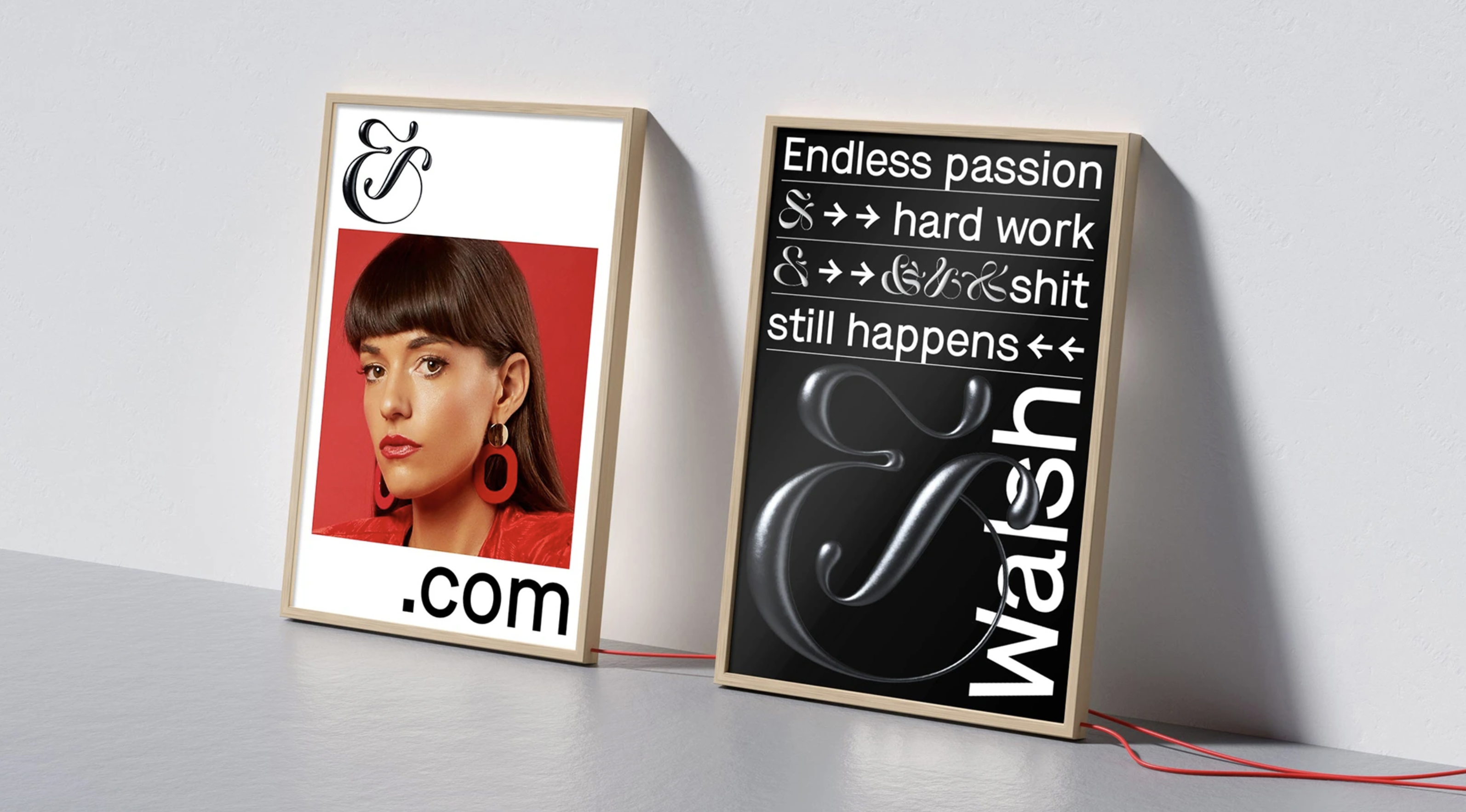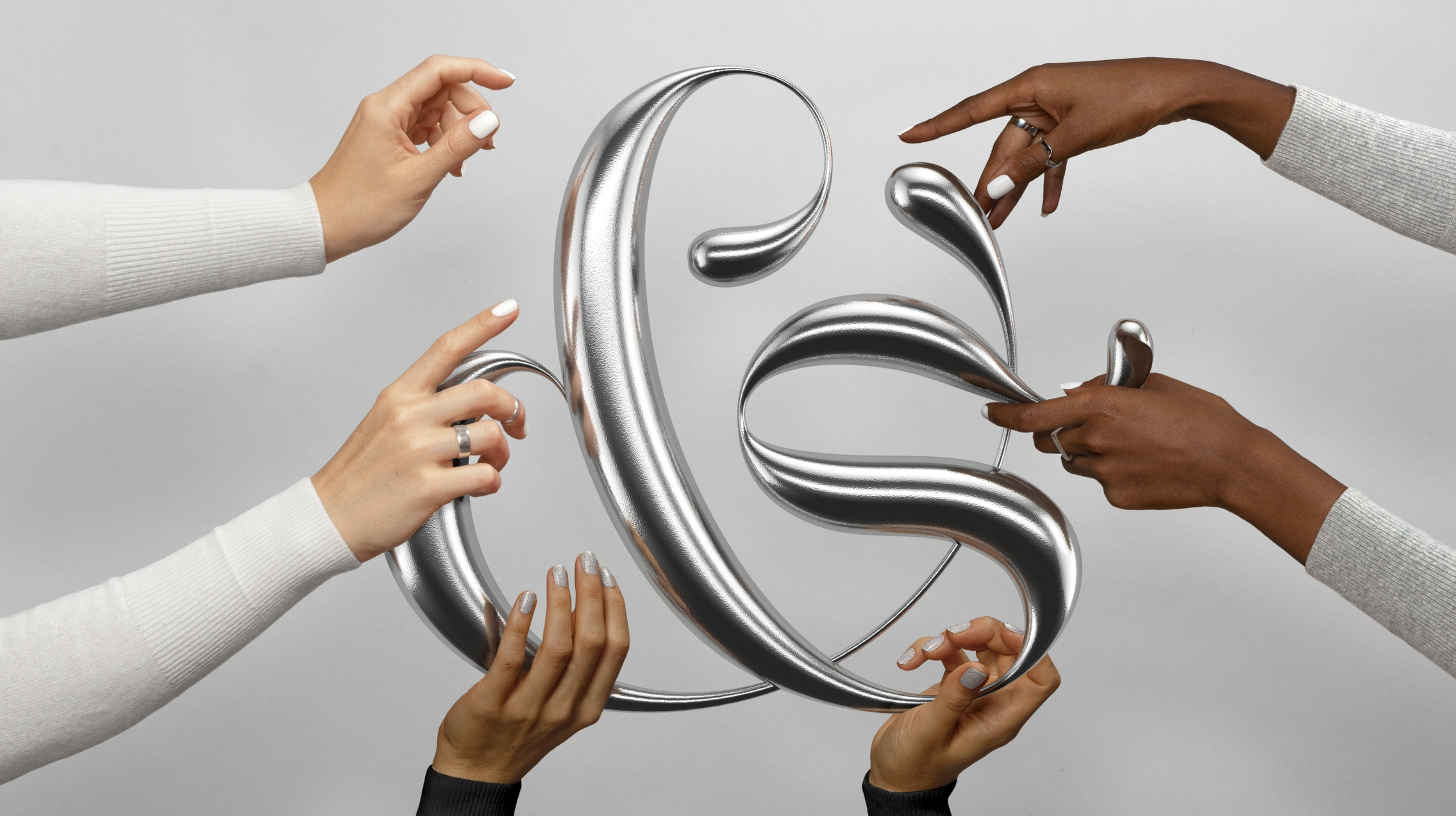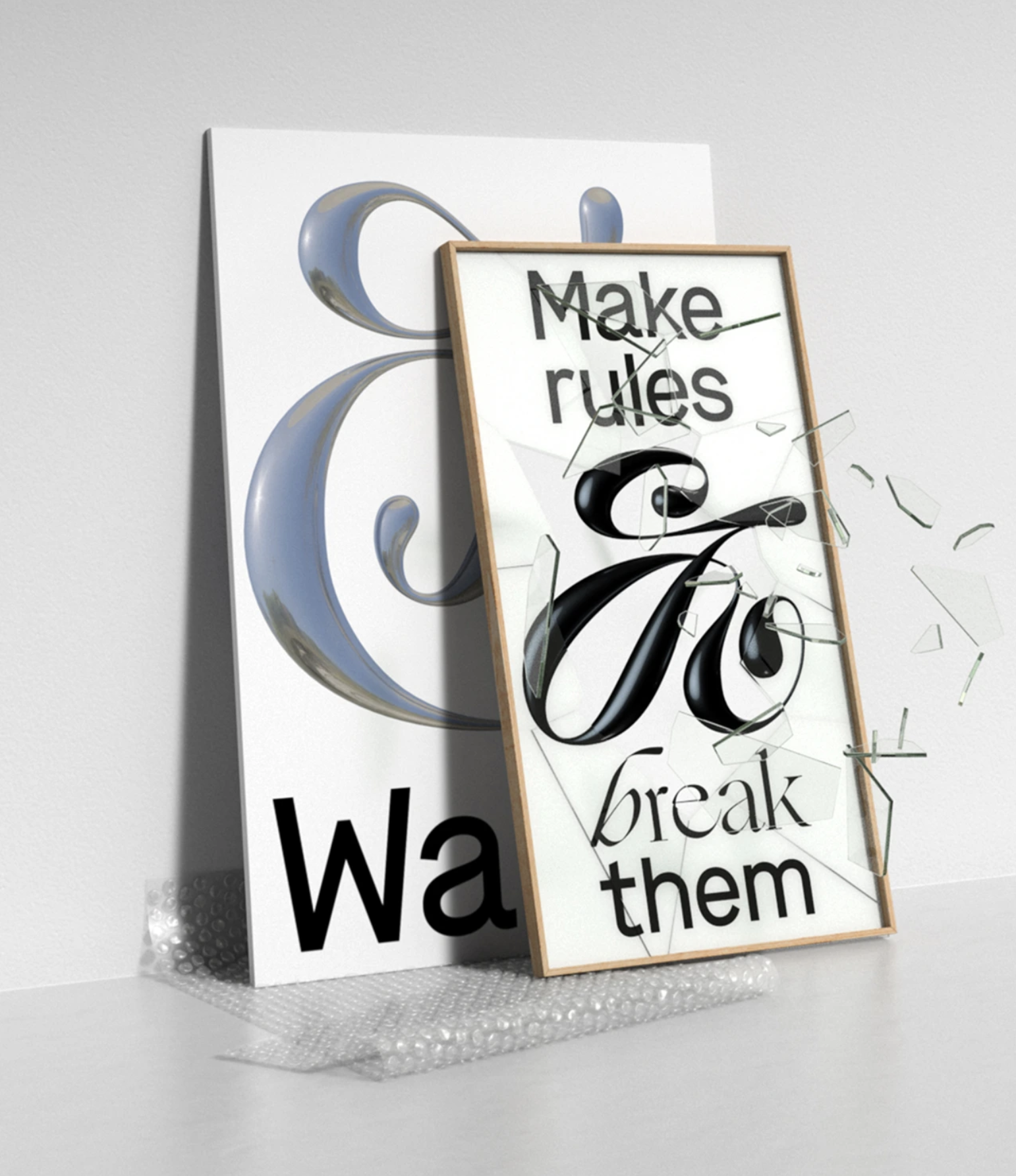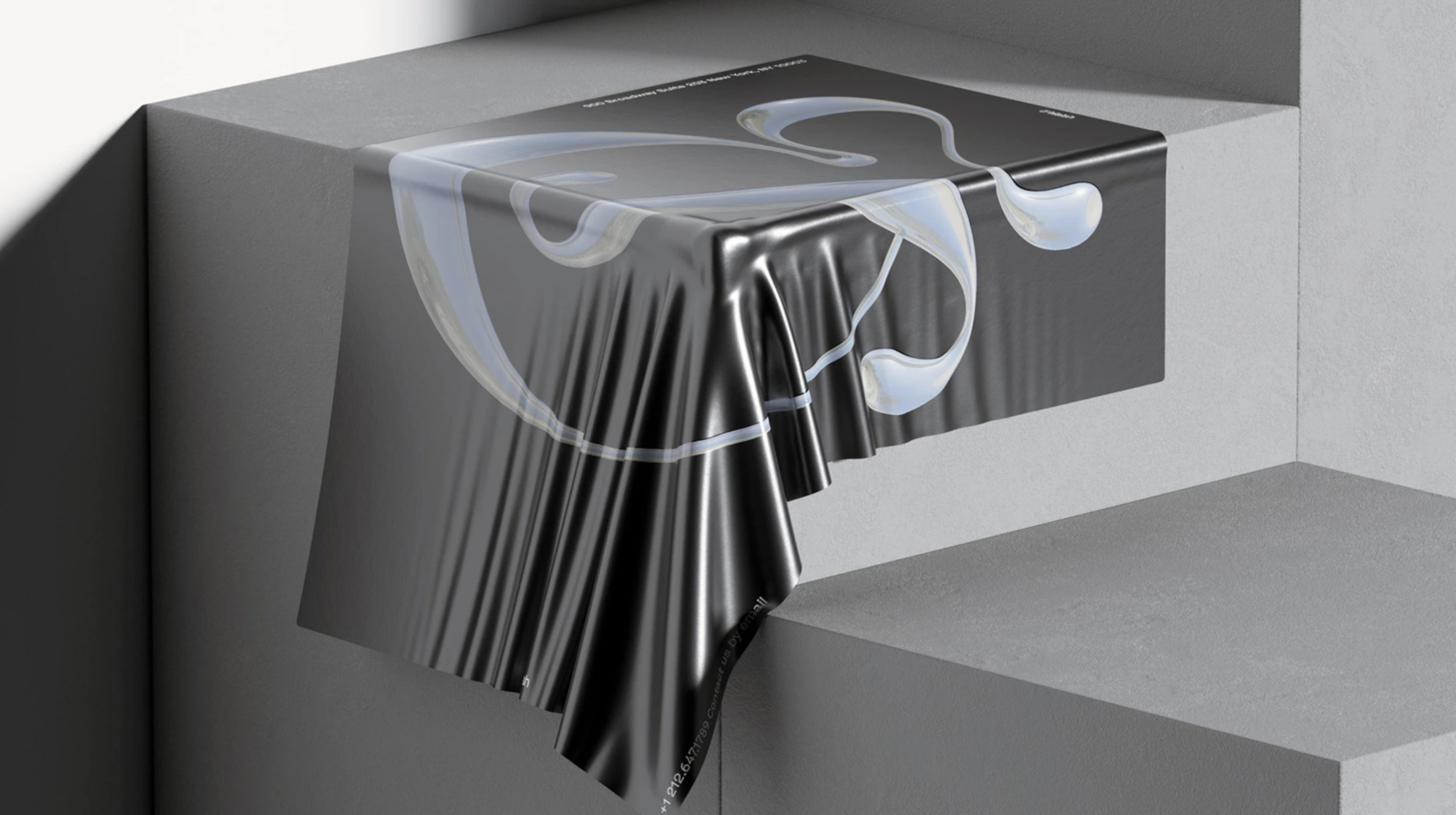
&Walsh: Jessica Walsh launches her own agency to disrupt the system
Have you ever felt a deep voice inside telling you that it was time for a change, but you didn’t know why? Mine started last year. It grew from a passing thought into an internal monologue, until one day it was all I could think about” writes renowned designer Jessica Walsh, co-founder and creative director of New York design firm Sagmeister & Walsh, who is flying solo with her own agency in the creative industry.
Her brand new venture &Walsh is wholly owned by the 32-year-old founder, CEO and creative director who is regarded a longtime fixture in the design world with a stunning portfolio of works including branding & advertising projects for Snapchat, Apple, Beats by Dre, Kenzo, C3/Live Nation Festivals, among many others. Starting this week &Walsh takes the place of Sagmeister & Walsh, which will no longer accept commercial work together but will continue to collaborate when needed.
“Why change? Since I was very young, It has always been my dream to have my own studio that was entirely my own. It was my intention 10 years ago to start my own company before I met Stefan. Life takes you on unexpected paths, and mine took me towards his studio on 23rd street on a cold day in February. That meeting turned into working on several projects together, and we became business partners a few years later” writes Walsh who is beyond excited to launch her brand new venture which puts her in a position of power in the creative sector -across which sexism is rife.
“I’m overwhelmed with gratitude for this privileged position I’ve found myself in. Very few women make it to creative leadership positions and even fewer have founded their own creative agencies” she notes as she joins a league few females were allowed to. FYI, with &Walsh its founder joins the .1% of Women Founded Creative Agencies.
“The lack of representation in leadership & the pay gap for women and non-binary people has been a focus of mine through our non-profit initiative Ladies, Wine & Design. This initiative was born out of personal experiences I had with sexism in our industry, not only from men but from other women. I found that sometimes women were unsupportive of one another, possibly because our chances of reaching the top are much slimmer than for men. The numbers say it all: 70% of design students are women, but only 5-11% of creative director positions are held by women. Only .1% of creative agencies are women-owned. POINT. ONE. PERCENT. How does this make any sense when women drive about 80% of consumer purchasing? Diversity in leadership at agencies drives profit” she adds.
Walsh is beyond excited to launch her brand new venture which puts her in a position of power in the creative sector -across which sexism is rife
“In addition to the leadership gap, there is still a pay gap for women and an even larger gap for women of color. We cannot talk about feminism without including the varying intersections of privilege and oppression. All too often feminism only champions the equality of white, cisgender, straight women. Feminism should be inclusive of all people, championing equality for everyone — no matter their race, gender, sexual orientation, nationality, age or ability. While we’re living in divisive times, it’s exciting to see the younger generations breaking down traditional ideas of gender, beauty, relationships, work culture, etc. towards a future that is more fluid, genderless and accepting of all humans as we are. My dream for our industry is to see much more representation at the top. This will not only make our work stronger and more inclusive, but make the creative work function better” writes Walsh who is determined to use her influence for social change through initiatives of justice.
Privileged and talented -“I’m white & cisgender in a heteronormative relationship. My family could afford my education without leaving me in debt. I found a career I am passionate about” she notes- Walsh and her team are ready to disrupt the male-dominated system when others don't, won't or can't.
“My dream for our industry is to see much more representation at the top. This will not only make our work stronger and more inclusive, but make the creative work function better”
“I’m confident and excited about this next chapter, but being human, I can’t help but have fears. What will people say about this? What will the haters find to pick on this time? Will we lose clients now that we're a woman-only led agency? Will we continue to land amazing creative clients? Will anyone care? But at the end of the day… does it matter? All I can do is what I’ve always done: try really fucking hard. I wake up each morning with a fierce determination to keep growing personally & professionally. To push our work and our studio culture forward. I want to invest even more into meaningful projects such as Let’s Talk About Mental Health or Ladies, Wine & Design. I want to give back to this amazing creative community which has given me so much. I want to find more ways to pass on my knowledge. All of this is at the heart of &Walsh, which I elaborate on in this article” writes this female force of creativity by the name Jessica Walsh, branded from now on with an ampersand.
“The ampersand is one of the most beautiful typographic characters and will challenge ourselves to continuously reinvent its form”
After 1,230 designs the agency's branding uses an ampersand for both the visual identity and tonal expression. “This typographic system includes our clients, projects, collaborators, experiments & endeavors: hence the (Blank) & Walsh. We've drawn 50 final ampersands in our style and will draw a custom ampersand drawn for every new project or team member. The ampersand is one of the most beautiful typographic characters and will challenge ourselves to continuously reinvent its form,” writes the agency.